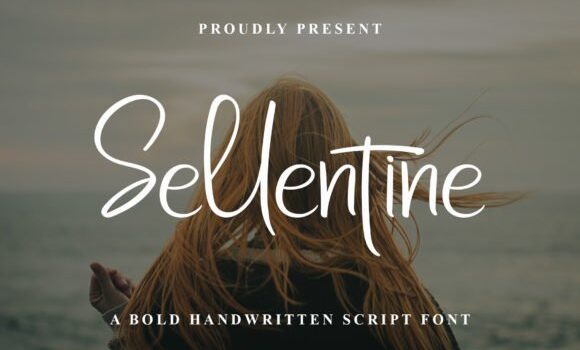
sellentine
Sellentine Font – Free Download Introduction to Sellentine Font Sellentine is a beautiful and delicate handwritten font with a unique feel and a stunning impact. 📸 Preview Gallery 6 images 📌 Product Name Sellentine Font 👤 Author fontminestudio 📂 Category